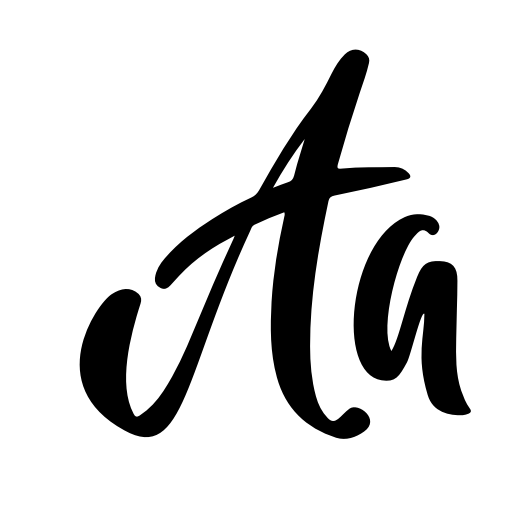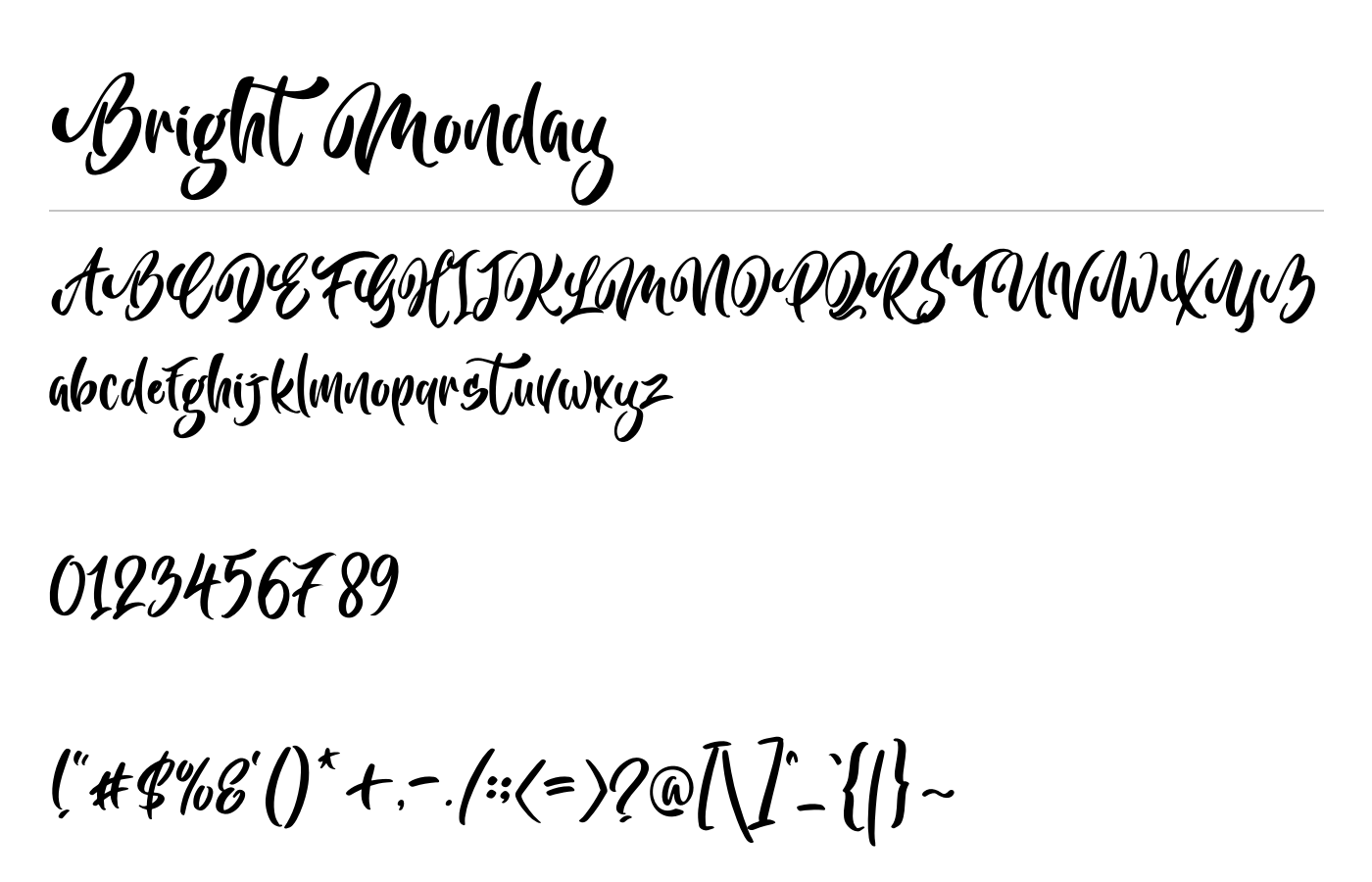
Bright Monday is a lively and elegant script font featuring smooth, flowing lines with medium contrast stroke weights that convey a sense of warmth and creativity. Its hand-lettered style with distinctive letterforms makes it perfect for adding a personal and stylish touch to invitations, logos, and branding projects that aim for a friendly yet sophisticated look. This font works especially well in designs that benefit from a hand-crafted, artistic vibe while remaining highly readable and expressive.
Bright Monday Font
About Bright Monday Font